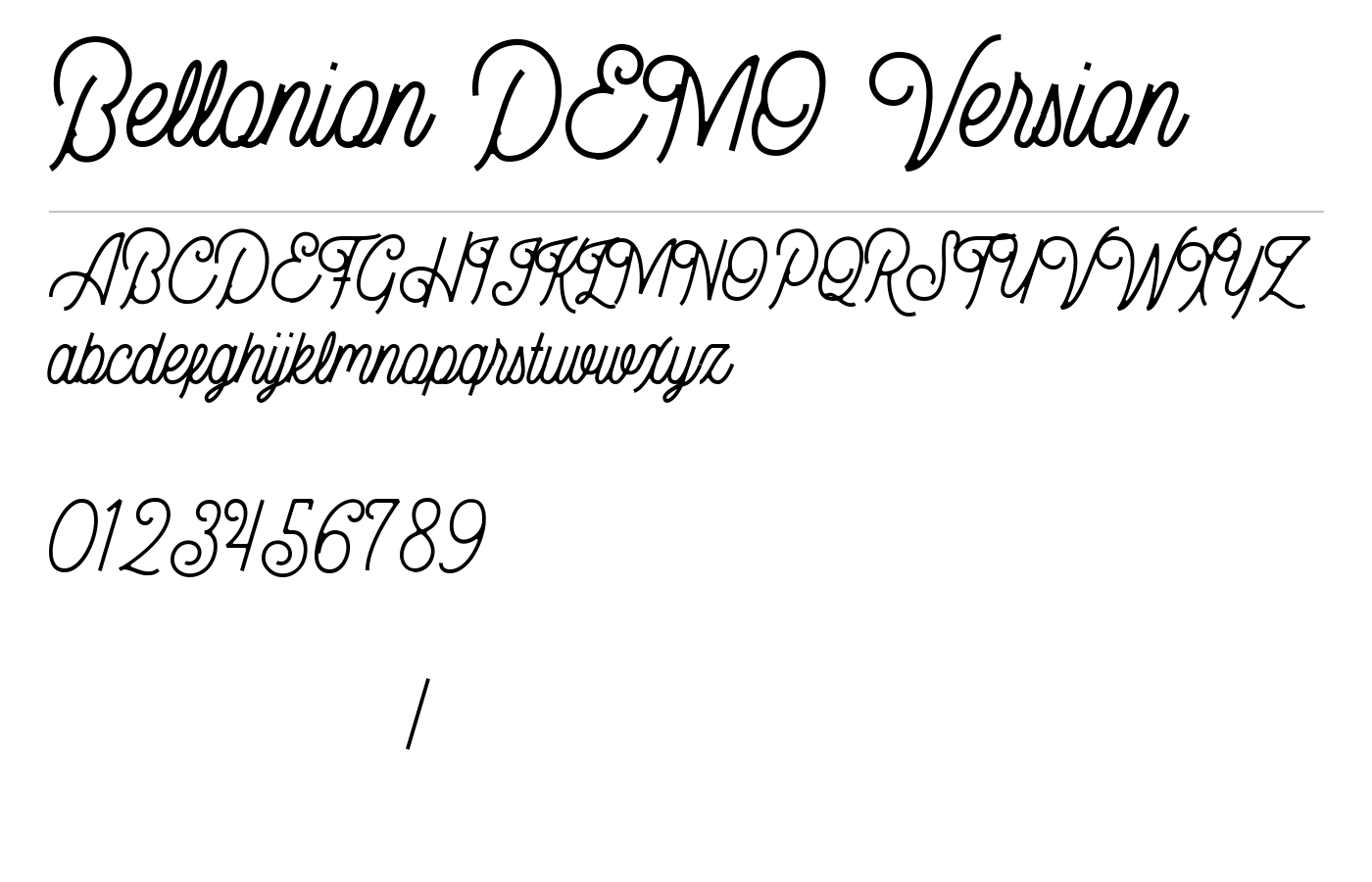
Bellonion DEMO Version is an elegant script font with a delicate, handwritten feel characterized by smooth, flowing lines and decorative curls. Its light weight and moderate contrast give it a refined and graceful appearance, making it ideal for invitations, branding, and stylish editorial use where a personal and sophisticated touch is desired. This font works well in display settings, bringing a vintage yet fresh charm to logos, packaging, and headlines.
Bellonion DEMO Version Font
About Bellonion DEMO Version Font